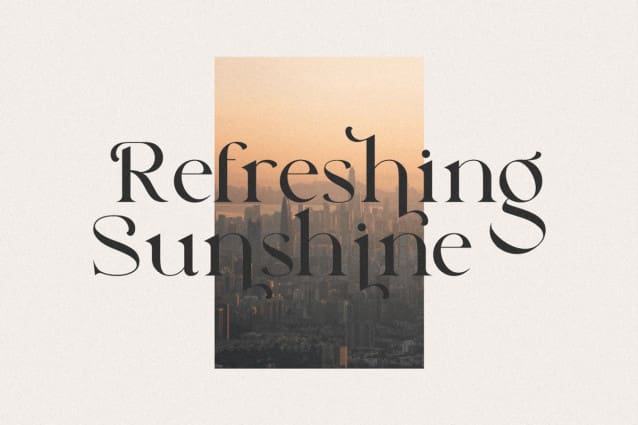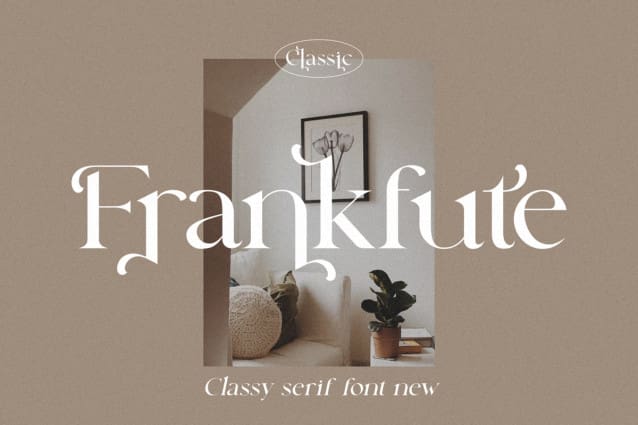
Frankfute Font
Frankfute Font, This modern serif font features serif letters. Perfect for bold logos and headlines, the Frankfute Classy Font will pair beautifully with many fonts and work well with any project you are working on.